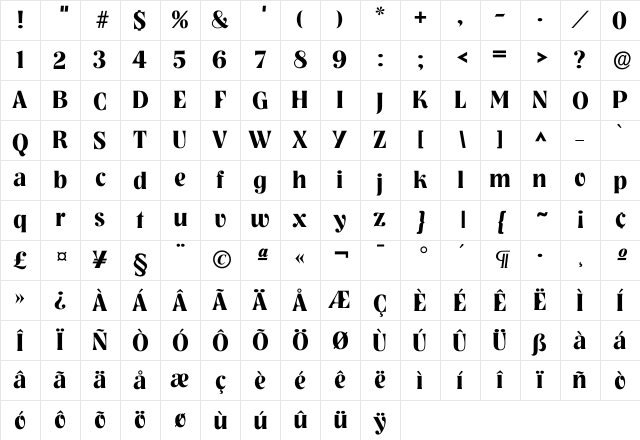
Nashvi DemiBold Free Font
Nashvi DemiBold
Style: DemiBold
Nashvi Family
Design Context for Nashvi
Nashvi is a composed and adaptable typeface that performs quietly and consistently across a wide range of design contexts. Its bold stroke weight gives it real presence on the page.